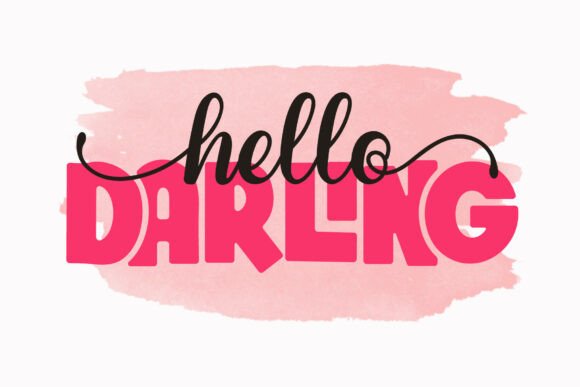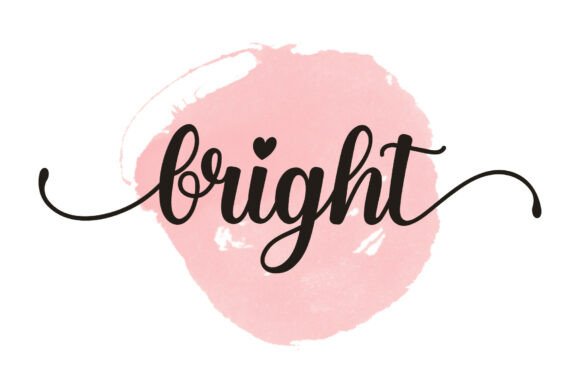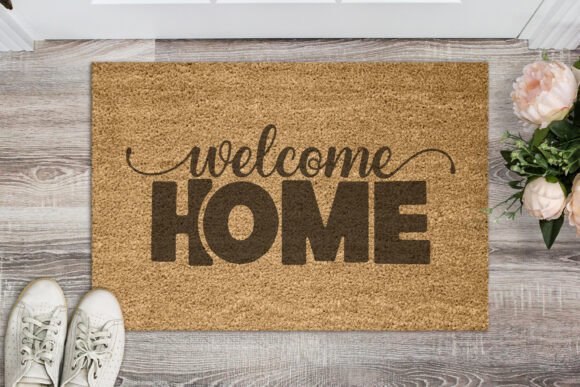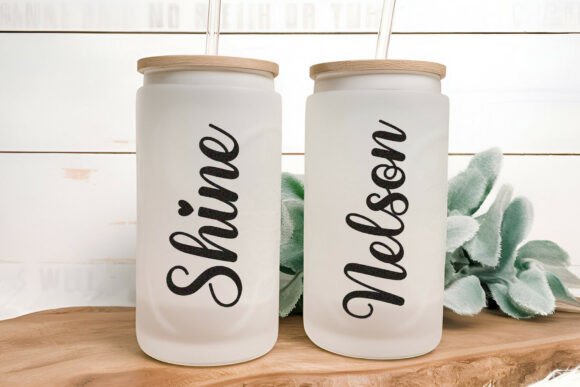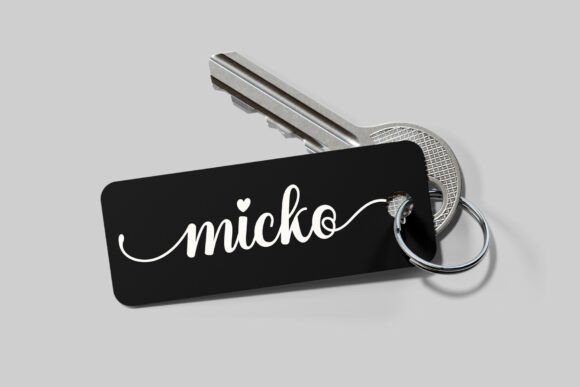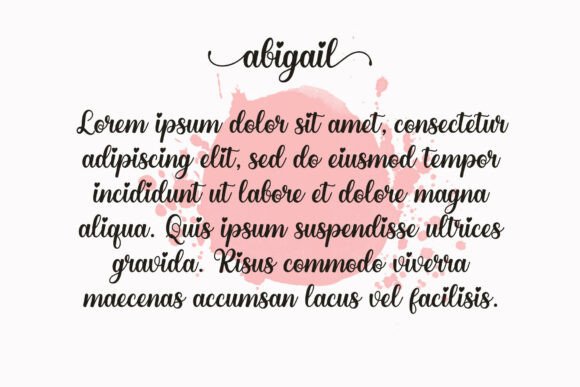
Introducing Abigail Font: The Elegant Script Calligraphy Font for Your Design Needs
Are you a designer or crafter looking for a beautiful and elegant font to add a touch of sophistication to your designs? Look no further than Abigail Font, a stunning script calligraphy font that exudes modernity and loveliness. In this article, we’ll dive into the features and benefits of Abigail Font, and explore how it can elevate your designs to the next level.
What is Abigail Font?
Abigail Font is a pretty simple script calligraphy font that boasts an elegant and modern aesthetic. Its lovely vibes make it perfect for designs that require a touch of sophistication and refinement. One of the standout features of Abigail Font is its lowercase tail swash, which appears at the front and back of the letters, adding an extra layer of elegance and beauty to the design.
Key Features of Abigail Font
- Elegant and Modern Design: Abigail Font features a beautiful, flowing script design that’s perfect for creating elegant and modern designs.
- Lowercase Tail Swash: The font’s lowercase tail swash adds a touch of sophistication and refinement to the design, making it perfect for special occasions and formal events.
- Handwritten Vibes: Abigail Font has a lovely handwritten feel that’s perfect for designs that require a personal touch, such as wedding invitations, birthday cards, and stickers.
- Versatile: This font is suitable for a wide range of design applications, including wedding designs, invitations, stickers, sublimation, cards, birthday designs, t-shirt designs, farmhouse designs, and more.
Uses for Abigail Font
Abigail Font is an incredibly versatile font that can be used for a wide range of design projects. Here are some ideas to get you started:
- Wedding Designs: Create beautiful wedding invitations, wedding stationery, and wedding decorations with Abigail Font.
- Invitations: Design elegant invitations for birthdays, baby showers, and other special occasions using Abigail Font.
- Stickers: Create adorable stickers for laptops, water bottles, and other items with Abigail Font.
- Sublimation: Use Abigail Font for sublimation designs on t-shirts, mugs, and other products.
- Cards: Design beautiful greeting cards for birthdays, holidays, and other special occasions with Abigail Font.
- T-Shirt Designs: Create stylish t-shirt designs with Abigail Font.
- Farmhouse Designs: Use Abigail Font for farmhouse designs, such as signs, wall art, and other decorative items.
Why Choose Abigail Font?
So why choose Abigail Font for your design needs? Here are just a few reasons:
- Elegant and Sophisticated: Abigail Font adds a touch of elegance and sophistication to any design.
- Easy to Read: The font is easy to read, even in small sizes, making it perfect for a wide range of design applications.
- Unique and Creative: Abigail Font has a unique and creative feel that’s sure to make your designs stand out.
- High-Quality: The font is high-quality and comes with a range of features, including lowercase tail swash and modern design.
In conclusion, Abigail Font is a stunning script calligraphy font that’s perfect for designers and crafters looking to add a touch of elegance and sophistication to their designs. With its lovely vibes, elegant design, and versatile uses, Abigail Font is an excellent choice for a wide range of design projects. Whether you’re creating wedding designs, invitations, stickers, or other items, Abigail Font is sure to impress.